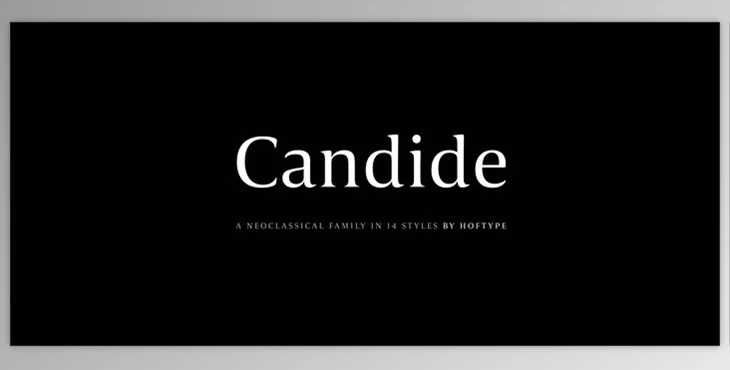
Fully equipped for international usage, she has designed Candide, a well-crafted neoclassic typeface focused on magazine and newspaper bias from Hoftype. The font family contains 16 styles, which are all organized into OpenType format, so it makes it easier to use these for many different languages.
- Incorporates standard and custom ligatures
- Offers both proportional and tabular lining figures
- Features old-style lining proportional and old-style figures
- Contains matching arrows and currency symbols
- Supports scientific numerals, fractional, and fractioned numerals
- Provides character alternates